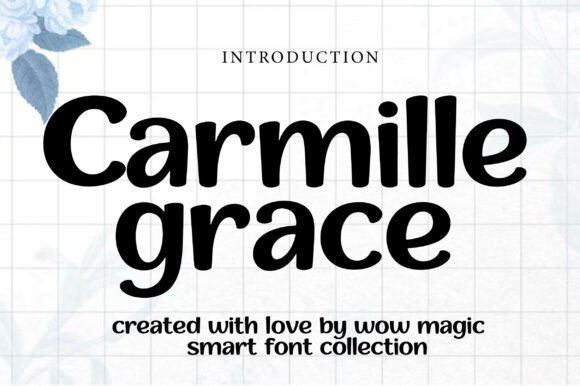
The Designer’s Delight: How Carmille Grace Font Became My Go-To for Friendly and Playful Typography
I still remember the design project that led me to discover Carmille Grace Font. I was working on a branding project for a children’s play area, and I needed a font that was both playful and approachable. As I scrolled through my font library, I stumbled upon Carmille Grace, and it instantly clicked. The rounded strokes, smooth curves, and clean letterforms created a soft and modern look that perfectly captured the essence of the brand. In this article, I’ll share my experience with Carmille Grace, its features, and how to make the most of it in your designs.
- ✅ Versatile and Friendly: Carmille Grace has a balanced handwritten style that works well for various design projects, from branding materials to social media graphics.
- ✅ Smooth and Modern Look: The font’s rounded strokes and clean letterforms create a soft, approachable look that’s both modern and playful.
- ✅ Easy to Read: The font is clear and legible, making it perfect for body text and headings.
- ⚠️ Limited Formality: Carmille Grace is a friendly and playful font, which may not be suitable for formal or corporate designs.
- ⚠️ Glyph Limitations: While the font has a range of glyphs, it may not have extensive language support or special characters.
The Designer Behind Carmille Grace: A Backstory
Carmille Grace was designed with the intention of creating a friendly and approachable font that would bring warmth and charm to designs. The designer aimed to craft a font that was both modern and playful, with a balanced handwritten style that would work well for various creative projects.
| Font Name | Carmille Grace Font |
| Author | Wow Magic |
Q: What type of designs is Carmille Grace best suited for?
A: Carmille Grace is a versatile font suitable for various design projects, including branding materials, product packaging, invitations, social media graphics, greeting cards, posters, and website headers.
Q: Is Carmille Grace a difficult font to read?
A: No, Carmille Grace is a clear and legible font, making it perfect for body text and headings.